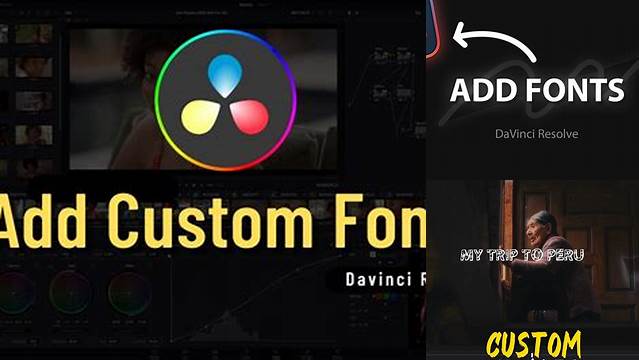
Install Custom Fonts In DaVinci Resolve 17: A Step-by-Step Guide
Hey guys! Ever felt like the default fonts in DaVinci Resolve 17 just aren't cutting it for your awesome video projects? You're not alone! Adding custom fonts can seriously level up your videos, giving them that unique and professional touch. In this article, we're going to dive deep into how you can install and use your favorite fonts in DaVinci Resolve 17. No more boring text – let's get those creative juices flowing!
Why Use Custom Fonts in DaVinci Resolve 17?
Before we jump into the how-to, let's quickly chat about the why. Custom fonts aren't just about aesthetics; they're about branding, conveying the right mood, and making your content stand out. Think about it: a playful font for a kids' video, a sleek and modern font for a tech review, or an elegant script for a wedding montage. The right font can amplify your message and make your videos more engaging. Plus, using custom fonts can help you maintain a consistent brand identity across all your projects.
Understanding Font Formats
First things first, let's get a little nerdy about fonts! Fonts come in various formats, but the most common ones you'll encounter are TrueType (.ttf) and OpenType (.otf). Both formats work perfectly well with DaVinci Resolve 17, so you don't need to stress too much about the technicalities. However, it's good to know the difference. TrueType fonts are the OG format, while OpenType fonts are the newer, cooler sibling with more advanced features like ligatures and alternate characters. In most cases, you can use either format without any issues. Just make sure the font you download is compatible with your operating system (Windows or macOS) – which, spoiler alert, they almost always are!
Where to Find Awesome Fonts
Okay, so where do you find these magical custom fonts? The internet is your oyster, my friend! There are tons of websites offering free and premium fonts. Some popular options include Google Fonts, DaFont, Font Squirrel, and Adobe Fonts. Google Fonts is a fantastic resource for free, high-quality fonts that are super easy to download and use. DaFont is another great option, with a massive library of fonts in every style imaginable. Font Squirrel is known for its selection of fonts that are licensed for commercial use, which is crucial if you're creating videos for clients or your business. And if you're an Adobe Creative Cloud subscriber, you have access to Adobe Fonts, which integrates seamlessly with your system. When choosing a font, think about your project's style and message. Is it professional? Playful? Elegant? There's a font out there for every occasion!
Step-by-Step Guide to Installing Custom Fonts
Alright, let's get down to the nitty-gritty. Installing custom fonts is actually super easy, and the process is pretty much the same for both Windows and macOS. Here's a step-by-step guide to get you started:
Step 1: Download Your Font
First, find a font you love and download it from one of the websites we mentioned earlier. Make sure the font file is in either .ttf or .otf format. The downloaded file will usually be in a zipped folder, so you'll need to extract it.
Step 2: Extract the Font Files
Locate the zipped folder you downloaded and extract its contents. On Windows, you can usually right-click the folder and select "Extract All." On macOS, simply double-click the zipped folder to extract it. Inside the extracted folder, you should find the font files (.ttf or .otf).
Step 3: Install the Font on Windows
For Windows users, there are a couple of ways to install the font. The easiest method is to right-click the font file (.ttf or .otf) and select "Install." Windows will automatically install the font, and it will be available for use in all your applications, including DaVinci Resolve 17. Alternatively, you can open the font file and click the "Install" button at the top of the window. Another way is to manually copy the font files to the Fonts folder in your Windows directory. To do this, open the Run dialog box (Windows key + R), type fonts
, and press Enter. This will open the Fonts folder. Simply drag and drop the font files into this folder, and Windows will install them.
Step 4: Install the Font on macOS
For macOS users, the process is just as straightforward. Double-click the font file (.ttf or .otf), and Font Book will open. Font Book is the built-in font management application on macOS. Click the "Install Font" button at the bottom of the Font Book window. macOS will validate the font and install it on your system. You may be prompted to enter your administrator password to complete the installation.
Step 5: Restart DaVinci Resolve 17
This is a crucial step! After installing your custom font, you need to restart DaVinci Resolve 17 for the font to appear in the font list. If you don't restart, you won't see your new font, and you might think something went wrong. So, save your project, close DaVinci Resolve 17, and relaunch it.
Using Your Custom Fonts in DaVinci Resolve 17
Now that you've installed your custom fonts and restarted DaVinci Resolve 17, it's time to put them to work! Here's how to use them in your projects:
Step 1: Open Your Project and Add a Text Element
Open your DaVinci Resolve 17 project and navigate to the Edit page. Add a text element to your timeline. You can do this by dragging a Text+ title from the Effects Library onto your timeline or by using the Text tool in the Fusion page.
Step 2: Select Your Text Element
Click on the text element in your timeline to select it. This will open the Inspector panel on the right side of the screen.
So, there you have it! Adding custom fonts to DaVinci Resolve 17 is a simple way to enhance your videos and give them a unique flair. By following the steps outlined in this article, you can easily install and use your favorite fonts in your projects. Remember to choose fonts that match your project's style, ensure readability, and always restart DaVinci Resolve 17 after installing new fonts. Happy editing, and may your videos be forever stylish!